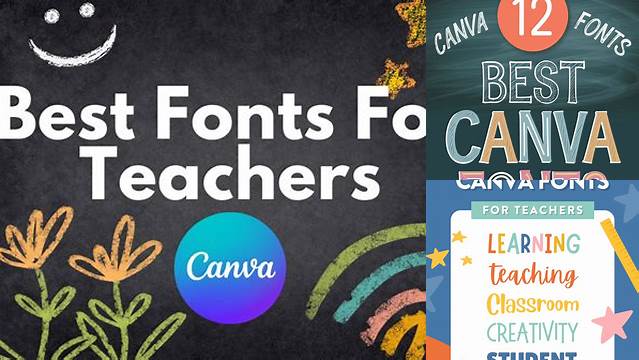
Awesome Free Canva Fonts For Teachers
Hey there, fellow educators! Are you looking to jazz up your presentations, worksheets, and classroom materials? Want to make them pop and grab your students' attention? Well, you're in luck! Today, we're diving headfirst into the wonderful world of free Canva fonts for teachers. Canva is an absolute lifesaver for teachers, offering a user-friendly platform to create stunning visuals. But with so many fonts available, how do you choose the right ones? Don't worry, I've got you covered. We'll explore some fantastic font pairings, tips on choosing fonts for different age groups, and how to make your designs stand out. Let's get started and unlock the power of typography to create engaging and effective learning resources. Get ready to transform your teaching materials with some amazing font choices!
1. Best Free Canva Fonts for Headings
Choosing the right font for your headings is like selecting the perfect outfit – it needs to be eye-catching, reflect your style, and communicate your message at a glance. When it comes to headings in Canva, several free font options stand out for their ability to immediately grab attention and draw readers into your content. Let's explore some of the best free Canva fonts for headings that teachers can use to create engaging and visually appealing materials. First up, we have Montserrat. This sans-serif font is a true workhorse. Its clean lines and modern feel make it an excellent choice for headlines that need to be both bold and readable. Montserrat is incredibly versatile, working well for everything from elementary school posters to high school presentations. It's effortlessly legible at various sizes, ensuring your message is clear and easy to understand from across the classroom. For an extra touch of sophistication, you can use Montserrat in all caps or pair it with a contrasting font for subheadings or body text. Then there is Poppins. This sans-serif font is known for its friendly and approachable appearance. It has rounded terminals and a slightly softer feel, making it ideal for creating a welcoming and engaging atmosphere in your materials. Poppins is highly versatile and works great for headings that target younger audiences or aim to convey a sense of warmth and approachability. This is also one of the best fonts to pair with more decorative fonts, because it helps to make the decorative font readable. Another fantastic option is Bebas Neue. This font is known for its bold, condensed, and impactful design. It's perfect for creating attention-grabbing headings that need to be noticed immediately. Its uppercase-only design adds a touch of formality, making it suitable for announcements, certificates, and important information. For a modern and sleek look, consider Lato. This sans-serif font strikes a perfect balance between a professional and friendly appearance. With its clear and simple letterforms, Lato is easy to read and understand, ensuring your headings are easily decipherable. Lato works well for creating a sense of trustworthiness and reliability, making it an excellent choice for informational materials and lesson plans.
Remember, the best headings are clear, concise, and visually appealing, encouraging your students to dive deeper into your lessons.
1.1 Why Headings Matter in Educational Materials
Headings aren't just about aesthetics; they play a pivotal role in how students engage with your teaching materials. In the context of education, headings function as signposts, guiding students through complex information and helping them understand the structure and organization of the content. A well-crafted heading acts as an immediate attention-grabber, signaling the key topic or concept of the section. They create a visual hierarchy, allowing students to quickly grasp the essential information and its relation to the overall lesson. Effective headings make learning materials more accessible and less intimidating. By breaking down dense text into smaller, manageable chunks, headings create a sense of order and clarity. This is especially crucial for students who might struggle with focus or are new to a subject. Headings, like visual anchors, help students understand the flow of information and identify key takeaways, improving their comprehension and retention. Consider the impact on students' motivation and engagement. Catchy or thought-provoking headings can spark curiosity and make them want to explore the topic further. Headings contribute to the overall aesthetics of educational materials, making them more visually appealing and engaging. A well-designed heading, combined with appropriate font choices and layout, can instantly elevate the perceived quality and professionalism of the learning resources. Teachers should thoughtfully choose headings that use language tailored to their audience. This includes using clear, concise terms that resonate with their students. To enhance readability, consider using various heading levels (H1, H2, H3, etc.) to indicate the hierarchy of information, creating a logical flow for students to follow. This creates a positive learning environment.
1.2 Choosing the Right Heading Font for Your Grade Level
Selecting the appropriate font for your headings is about matching the aesthetic of your materials with the age group you're teaching. Younger students, such as those in elementary school, respond well to fonts that are friendly, playful, and easy to read. Fonts like Comic Neue, Bubblegum Sans, or Patrick Hand are excellent choices. These fonts feature rounder letterforms, which feel more approachable and less intimidating. Avoid fonts with overly complex or stylized features that might distract or confuse young readers. As students progress to middle school, you can introduce fonts that are slightly more sophisticated, yet still maintain readability and visual appeal. Fonts like Open Sans, Lato, or Montserrat are great choices. These fonts have clean lines and a modern feel, yet remain easy to read. Experiment with slightly bolder weights to make headings stand out, but avoid anything that appears too heavy or overwhelming. When it comes to high school students, your font choices can become more diverse and reflect more mature themes. Fonts like Roboto, Raleway, or even a well-chosen serif font like Playfair Display can work effectively. These fonts offer a more polished look that aligns with the demands of older students. Be conscious of the overall design to reflect the content you are teaching. Regardless of age, always ensure that your chosen heading font is legible at various sizes and in different contexts. Avoid using fonts that are too thin, condensed, or have unusual letterforms, as they can be difficult to read. It's also important to consider the overall design of your materials. The right heading font complements the content and the rest of your design elements. The heading font and the body font should create a cohesive visual experience. Using contrasting fonts is also important, and ensure readability in all situations.
1.3 Headings Font Pairing: Combining Styles for Impact
Font pairing is an art. It's about finding two or more fonts that harmonize. It is best to pair different fonts together that reflect a sense of balance and visual harmony. Start with a clear and readable heading font as your foundation. This font should be bold and capture attention quickly. After that, find a body font that provides contrast. Use a font that is easy to read and complements the style of your heading font. For example, if you use a bold, modern sans-serif font for your headings, a clean and simple sans-serif or a classic serif font would pair well as the body text. Another key element is the font's style. The style of the font can be very different from each other. For instance, pairing a fun, handwritten heading font with a clean and structured body font can create a sense of balance and visual interest. Don’t be afraid to experiment. Play around with different font combinations to see what works best for your particular needs and the overall design of your materials. Consider the font's weight, size, and letter spacing for balance. Contrast is also important. It is recommended that you mix up the styles. Use fonts with distinct characteristics to keep the text clear. Think about the overall tone you want to convey. The fonts you choose will influence the look. If you're creating materials for a formal project, a serif font paired with a clean sans-serif will work well. On the other hand, a casual project might work well with a handwritten font paired with a friendly sans-serif. Keep your audience in mind. The choice of fonts depends on the target audience. If you are teaching younger children, consider friendly and easy-to-read fonts. For high school students, you can consider more sophisticated and modern fonts.
2. Best Canva Fonts for Body Text
Alright, let's talk about the unsung heroes of any great design – the body fonts! These are the workhorses of your text, carrying the bulk of the information and ensuring your content is easy to read and digest. Choosing the right font for your body text is essential because it significantly impacts readability and the overall user experience. A well-chosen font keeps your audience reading! Many free Canva fonts are excellent choices for body text, and you can elevate your educational resources. Here's a look at some top picks for body fonts that teachers can use, ensuring their materials are both informative and engaging. First, we have Open Sans. This is a clean, highly legible sans-serif font, which is one of the most widely used body fonts. Its simple letterforms and generous spacing make it incredibly easy on the eyes, ensuring that your students can read through long paragraphs without straining. Open Sans is an excellent choice for a wide range of educational materials, from worksheets and lesson plans to presentations and handouts. Next up is Roboto. This sans-serif font is known for its modern appearance and excellent readability. Its clear, geometric shapes are easily readable, making it ideal for students of all ages. Roboto is a versatile font and it works in almost any situation. The third font is Lato. Similar to Open Sans, Lato is a sans-serif font, but it has a slightly warmer, more rounded feel, making it a great option for body text. Lato is another great choice for long-form content, such as lengthy lesson plans, detailed instructions, or extended reading assignments. Last, let's not forget about the classic Arial. Arial is a reliable and widely used sans-serif font that offers outstanding readability. Arial is a safe choice that is easy to read and can be used in various educational contexts. Always keep the font size at an appropriate level. Your audience will thank you!
2.1 Readability vs. Personality in Body Fonts
When choosing body fonts, the balance between readability and personality is crucial. Readability focuses on the ease with which text can be read and understood. It is determined by factors such as font style, size, spacing, and line length. In educational materials, where students must process large amounts of information, readability should take priority. Select fonts that are clean, simple, and have clear letterforms. Avoid overly decorative fonts or those with unusual shapes that can strain the eyes and slow down reading speed. Personality, on the other hand, injects character and individuality into your design. It involves the font's unique style, such as its curve, weight, and overall design. While personality can make your materials more engaging and memorable, it must not come at the cost of readability. You can balance the two by carefully choosing fonts that offer a touch of personality without becoming overwhelming. Consider fonts with subtle stylistic features, such as slightly rounded letterforms or a unique stem, to add interest without compromising clarity. For example, a slightly more stylized font can be used for body text, such as Poppins. It is also important to consider your students. If you are teaching younger children, go for simpler fonts. For older students, you can go for fonts that have more personality. For the best results, create a style that is easy on the eyes and appeals to your audience.
2.2 Font Size and Spacing for Body Text
The right font size and spacing are the unsung heroes of any well-designed text, particularly when creating educational materials. Correct font size makes the content clear and easy to read. In most cases, body text should be set between 12 to 16 points. However, this can vary depending on the font style, the size of your audience, and the context in which your materials are used. For younger children, you may need to increase the font size slightly to improve legibility. Older students can handle a slightly smaller font. Also, make sure your spacing is balanced and easy to read. This is about the space between lines, letters, and words. Line spacing should be slightly larger than the font size. A good starting point is 1.5 times the font size. Letter spacing can be adjusted to optimize readability, especially for fonts that are too condensed. Wider letter spacing can make the letters easier to distinguish, while tighter spacing can make the text appear more compact. Pay attention to word spacing as well. You should maintain a consistent space between words. Avoid excessive or insufficient spacing, as this can make it difficult to read. Overall, ensuring the proper font size and spacing is critical for the clarity and readability of your educational materials. These simple adjustments have a big impact on how easily students can understand and digest the information you present.
2.3 Body Font Pairing: Complementing Headings and Other Elements
Body font pairing is about choosing fonts that work seamlessly. The best way to do this is to first choose a heading font. The body font should be easy to read, complement the tone, and be compatible with the heading font. When selecting a body font, consider its readability and how it relates to the heading font. Pair a clean sans-serif heading font with a clean sans-serif or a classic serif body font. Also consider the mood you want to convey. If your project is serious, choose a classic serif font. For casual materials, use a sans-serif font. Another useful tip is to use contrasting styles. Make sure your heading and body fonts contrast. Use a bold heading font with a lighter body font. The right font pairing is crucial to making your educational materials both visually appealing and easy to read. The right font choices will make your learning materials engaging and effective.